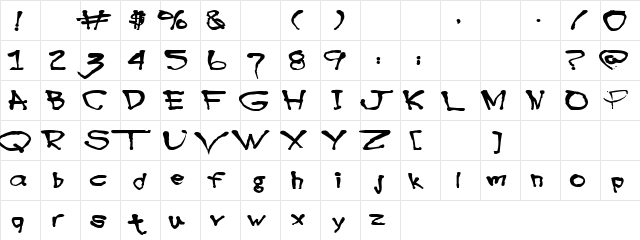
Wage Marry Regular
Design Context for Wage Marry Typeface
Wage Marry is a composed and adaptable typeface that performs quietly and consistently across a wide range of design contexts.